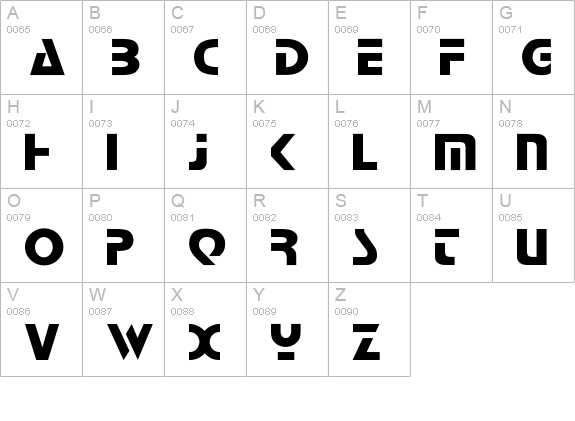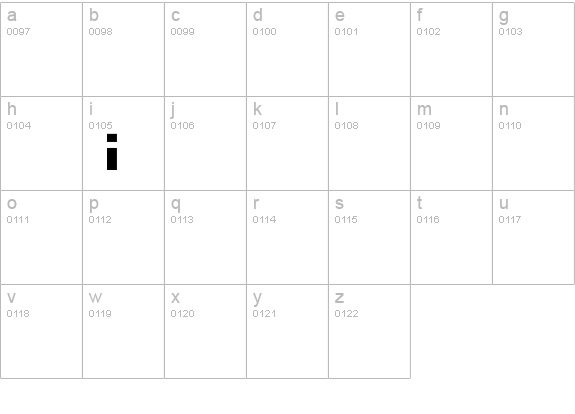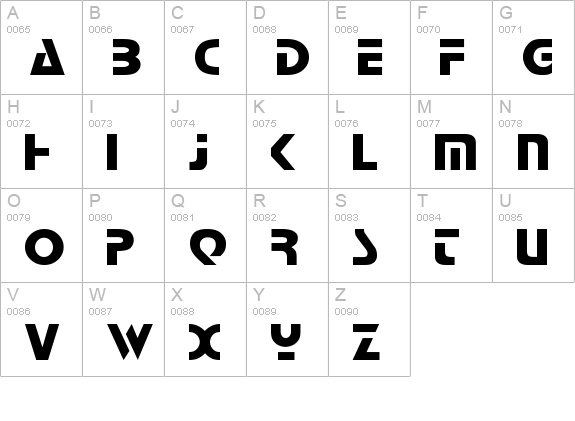
Pelnic Font Details
Pelnic font is a stunning typeface that exudes sophistication and elegance. With its sleek and modern design, this font is perfect for adding a touch of class to any project. Whether you're designing a logo, creating a website, or crafting a beautiful invitation, Pelnic font is sure to make a lasting impression. What sets Pelnic font apart is not only its striking aesthetics but also the fact that it is available for free. That's right, this remarkable font can be downloaded at absolutely no cost. It's a fantastic opportunity for designers, artists, and creatives to access a high-quality font without breaking the bank. To get your hands on Pelnic font, simply visit FontsMarket.com. This user-friendly website offers a wide range of fonts, and Pelnic is among their impressive collection. With just a few clicks, you can have this exceptional font at your fingertips, ready to elevate your designs to new heights. Pelnic font is a versatile typeface that is suitable for various projects and styles. Its clean lines and balanced letterforms make it easy to read, ensuring that your message is conveyed clearly and effectively. Whether you're aiming for a minimalist and modern look or a more traditional and classic feel, Pelnic font can effortlessly adapt to your vision. Don't miss out on the opportunity to enhance your creative projects with Pelnic font. Download it for free today at FontsMarket.com and unlock a world of design possibilities. Let Pelnic font elevate your work and leave a lasting impression on your audience.